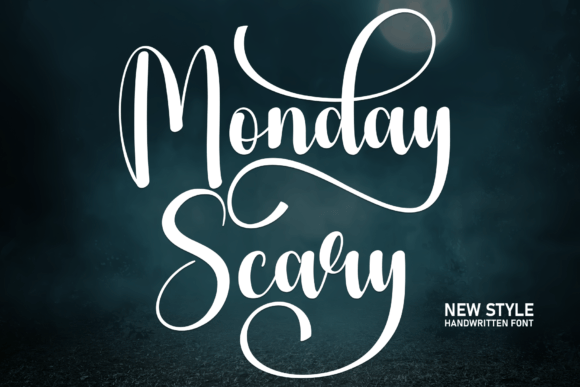
Behold Monday Scary Font – A Script That Will Ignite Your Creativity!
In a world where countless fonts clamor for your attention, Monday Scary Font stands tall, a towering testament to artistry and elegance. Handcrafted by the masterful Roronoa Zoro.S.P.D., this script font is an ethereal symphony of flowing lines, gentle curves, and captivating glyphs that will transform your designs into breathtaking masterpieces.
Unleash the Magic Within:
Dive into a world of endless possibilities with Monday Scary Font. Its captivating characters are like tiny dancers on a page, twirling and twisting to create a visual spectacle that will leave you spellbound. Watch as words morph into art, sentences become melodies, and your designs take on a life of their own.
Capture Hearts with Every Stroke:
Let Monday Scary Font infuse your designs with an air of sophistication and charm. This font isn't just a tool; it's a conduit for emotions, a whisper of romance, and a spark of creativity. With each stroke, you'll feel the passion and artistry of Roronoa Zoro.S.P.D. coursing through your veins, igniting your imagination and propelling your projects to new heights.
Perfect for a Myriad of Artistic Endeavors:
Monday Scary Font is the ultimate chameleon, effortlessly adapting to a vast array of design endeavors. Whether you're crafting heartfelt greeting cards, designing eye-catching headlines, or conjuring enchanting logos, this font will rise to the occasion, adding a touch of magic to every project. Its versatility knows no bounds, making it the perfect companion for your creative journey.
A Stroke of Inspiration Awaits:
Take the plunge into a world of captivating typography with Monday Scary Font. Discover the boundless possibilities it holds, the emotions it can evoke, and the stories it can tell. Let this font be the catalyst for your next creative masterpiece, the spark that ignites your imagination and sets your designs ablaze.